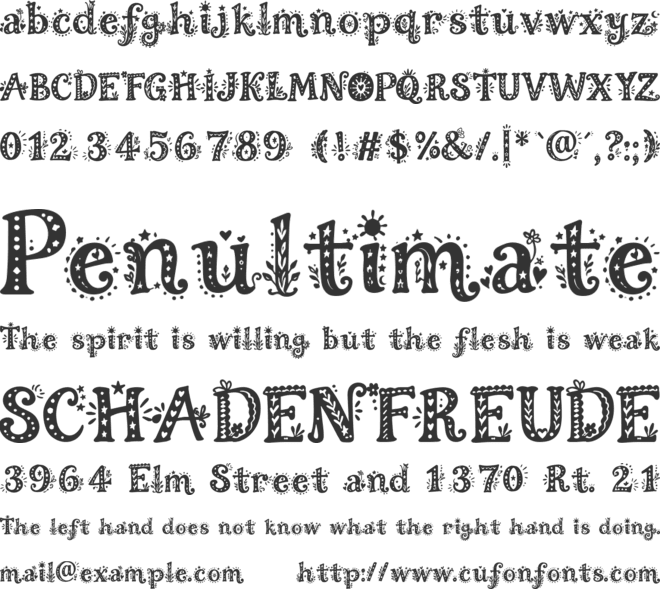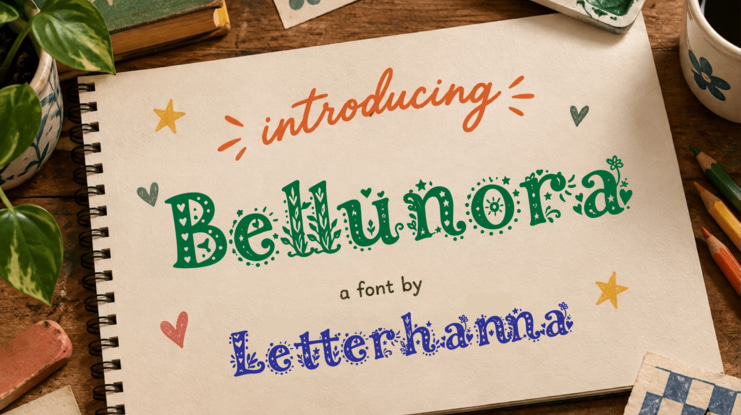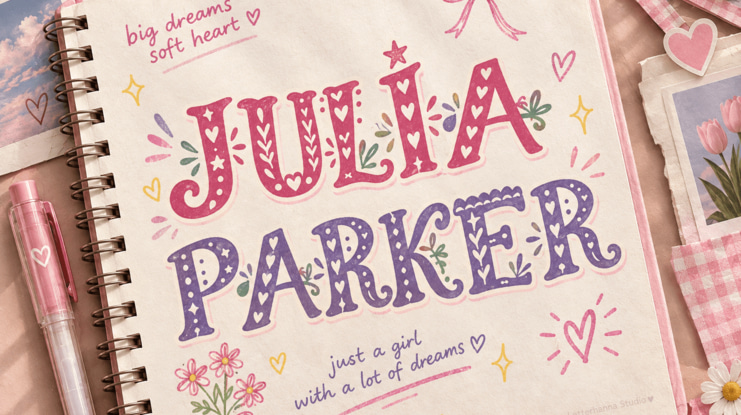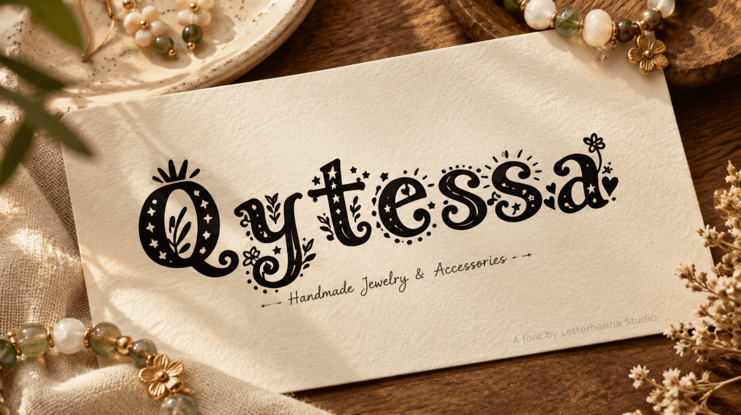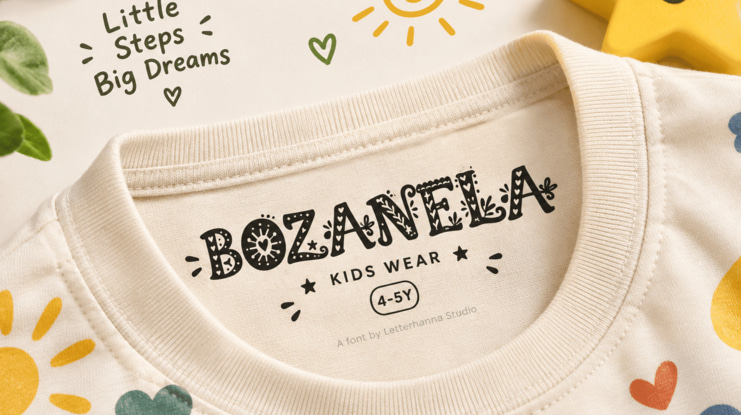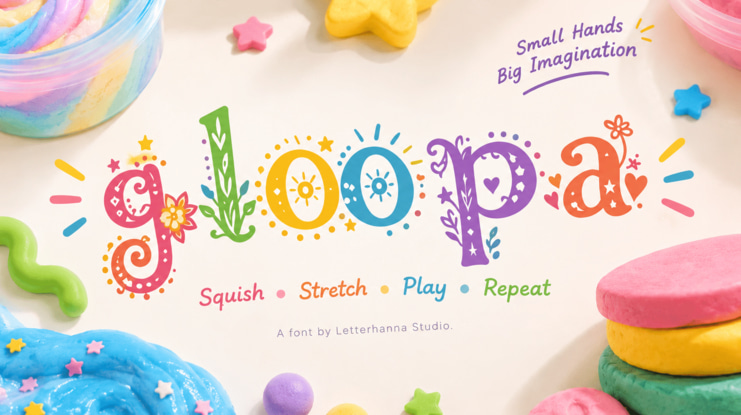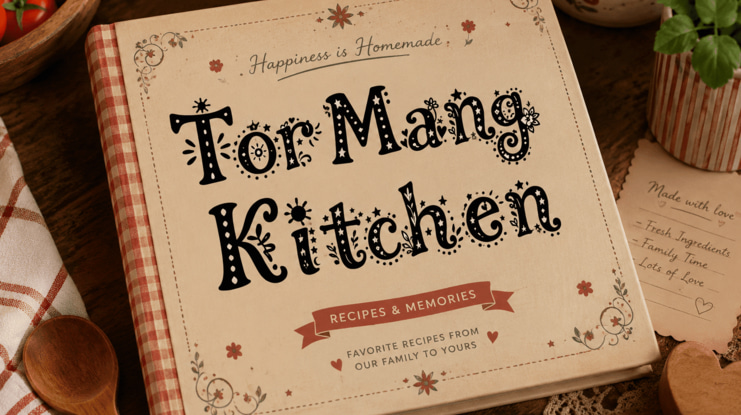
Introducing Bellunora — A Girly Font Made for Dreamers
Some fonts just say words. Bellunora tells a story. Every letter is packed with hand-doodled hearts, tiny stars, and delicate florals, turning a simple headline into something that feels handmade, personal, and unmistakably feminine.
If you've been searching for a girly font that doesn't feel generic, this is it. Bellunora was designed for creators who want their work to feel like a page torn straight out of a beloved diary.
A Style Built on Whimsy and Warmth
Bellunora blends bold, hand-drawn outlines with intricate inner details — hearts, dots, leaves, and blooms nestled inside every stroke. It's playful without being childish, decorative without being cluttered.
This balance makes it one of the most versatile doodle fonts available for soft, romantic branding.
Where Bellunora Shines
This typeface was made to be used, not just admired. Popular applications include:
A journal font for planners, diaries, and personal branding
A greeting card font for birthdays, weddings, and heartfelt notes
Packaging and labels for handmade or boutique products
Social media graphics that need a soft, girly touch
Logos for feminine, craft-based small businesses
The Vibe: Cozy, Sentimental, Scrapbook-Inspired
Bellunora carries the warmth of a handwritten letter and the charm of a scrapbook page. It works beautifully for brands built around comfort, nostalgia, and personal connection — the kind of design that makes people pause and smile.
Whether you're designing a wedding invitation or a cozy product label, Bellunora adds a layer of storytelling that plain fonts simply can't.